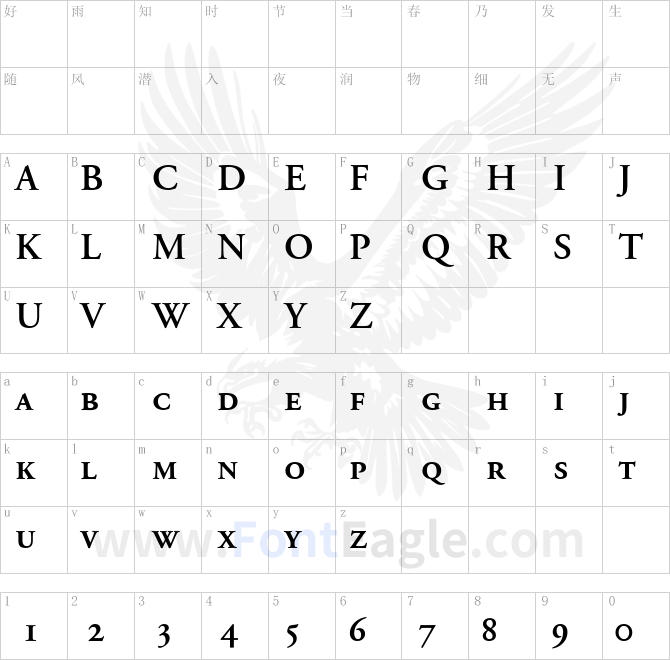
AGaramond RegularSC Bold.ttf Font Image
AGaramond RegularSC Bold.ttf Base Font Information
- Font name:AGaramond RegularSC
- Font Full Name:Adobe Garamond Semibold Small Caps & Oldstyle Figures
- Postscript:AGaramond-SemiboldSC
AGaramond RegularSC Bold.ttf Characters Sample